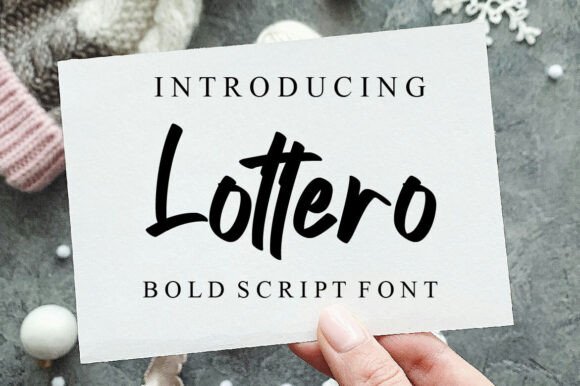
Lottero Font: A Bold, Handwritten Script Font for Romantic Designs
In the world of typography, fonts play a crucial role in conveying emotions and setting the tone for a design. When it comes to creating romantic and elegant designs, the right font can make all the difference. This is where Lottero Font comes in – a bold, handwritten script font that exudes romantic charm and sweet appeal. In this article, we’ll explore the features and uses of Lottero Font, and how it can elevate your designs to the next level.
Distinctive Characters and Striking Elegance
Lottero Font boasts distinctive characters that set it apart from other fonts. Its bold and handwritten script style gives it a unique, elegant look that’s perfect for designs that require a touch of sophistication. The font’s striking elegance is sure to capture the attention of your audience, making it ideal for a wide range of applications, from Valentine’s Cards to book covers.
One of the standout features of Lottero Font is its ability to add a touch of romance to any design. The font’s flowing curves and intricate details create a sense of luxury and refinement, making it perfect for designs that require a high level of elegance. Whether you’re creating a Valentine’s Card, a wedding invitation, or a romantic poster, Lottero Font is sure to impress.
Perfect for Romantic Designs
Lottero Font is perfectly tailored for a wide range of romantic designs, including:
- Valentine’s Cards: Add a touch of romance to your Valentine’s Cards with Lottero Font’s elegant and sophisticated style.
- T-shirts: Give your t-shirts a dash of chic elegance with Lottero Font’s bold and handwritten script style.
- Invitations: Create eye-catching invitations for weddings, anniversaries, and other special occasions with Lottero Font.
- Book Covers: Add a touch of sophistication to your book covers with Lottero Font’s striking elegance.
- Posters: Create engaging posters that capture the attention of your audience with Lottero Font’s bold and romantic style.
The possibilities are endless with Lottero Font. Its versatility and elegance make it perfect for a wide range of designs, from romantic and elegant to bold and eye-catching.
Tips for Using Lottero Font
To get the most out of Lottero Font, here are some typography tips to keep in mind:
- Use Lottero Font as a headline font to add a touch of elegance and sophistication to your design.
- Pair Lottero Font with a simpler font to create a striking contrast and add visual interest to your design.
- Experiment with different colors and textures to add depth and dimension to your design.
- Use Lottero Font’s bold and handwritten script style to add a touch of personality and whimsy to your design.
By following these tips, you can create stunning designs that showcase the beauty and elegance of Lottero Font.
Pairing Lottero Font with Other Fonts
Pairing Lottero Font with other fonts can create a stunning visual effect and add depth to your design. Here are some font pairing suggestions:
- Pair Lottero Font with a sans-serif font like Arial or Helvetica to create a striking contrast.
- Pair Lottero Font with a serif font like Times New Roman or Georgia to add a touch of elegance and sophistication.
- Pair Lottero Font with a script font like Pacifico or Great Vibes to create a romantic and whimsical look.
Experimenting with different font pairings can help you find the perfect combination to enhance your design and showcase the beauty of Lottero Font.
Design Inspiration with Lottero Font
Lottero Font is a versatile font that can be used in a wide range of designs, from romantic and elegant to bold and eye-catching. Here are some design inspiration ideas to get you started:
- Create a stunning Valentine’s Card with Lottero Font’s elegant and sophisticated style.
- Design a beautiful wedding invitation with Lottero Font’s flowing curves and intricate details.
- Develop a bold and eye-catching poster with Lottero Font’s striking elegance.
- Design a unique and elegant book cover with Lottero Font’s distinctive characters.
With Lottero Font, the possibilities are endless. Let your creativity shine and experiment with different designs to showcase the beauty and elegance of this stunning font.
In conclusion, Lottero Font is a bold, handwritten script font that exudes romantic charm and sweet appeal. Its distinctive characters and striking elegance make it perfect for a wide range of designs, from Valentine’s Cards to book covers. With its versatility and elegance, Lottero Font is sure to elevate your designs to the next level. So why wait? Download Lottero Font today and start creating stunning designs that capture the essence of romance and elegance.